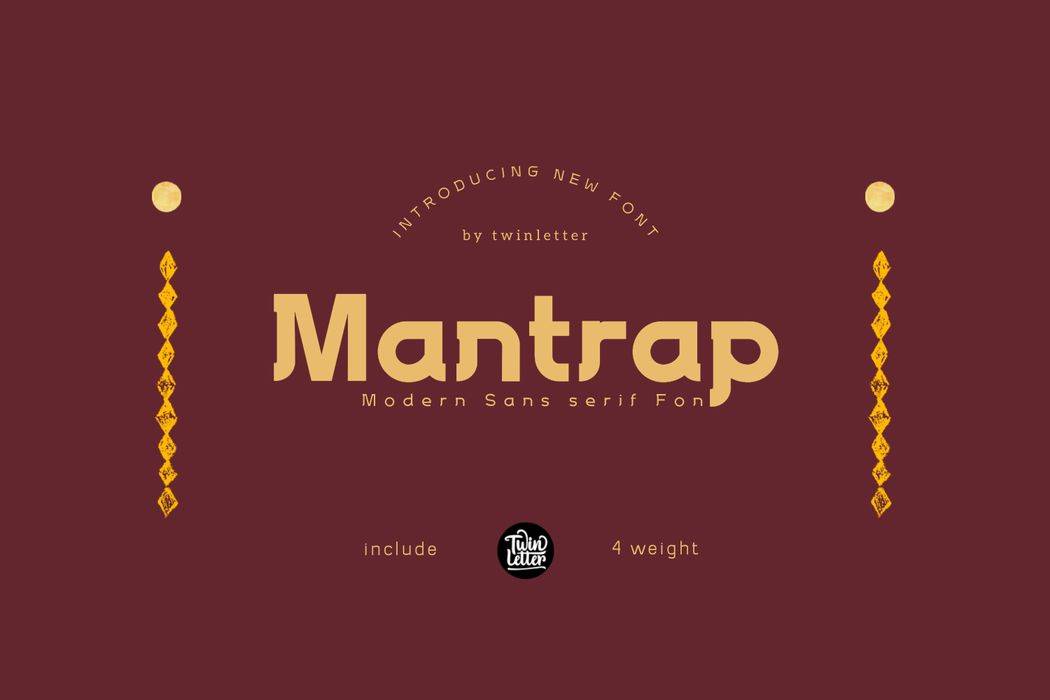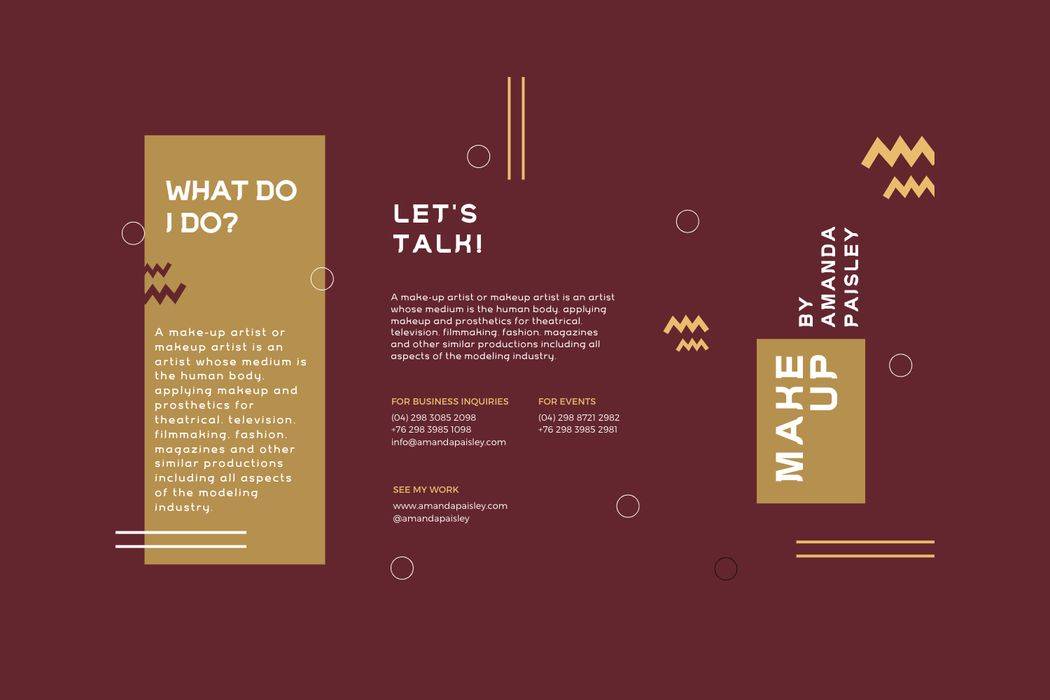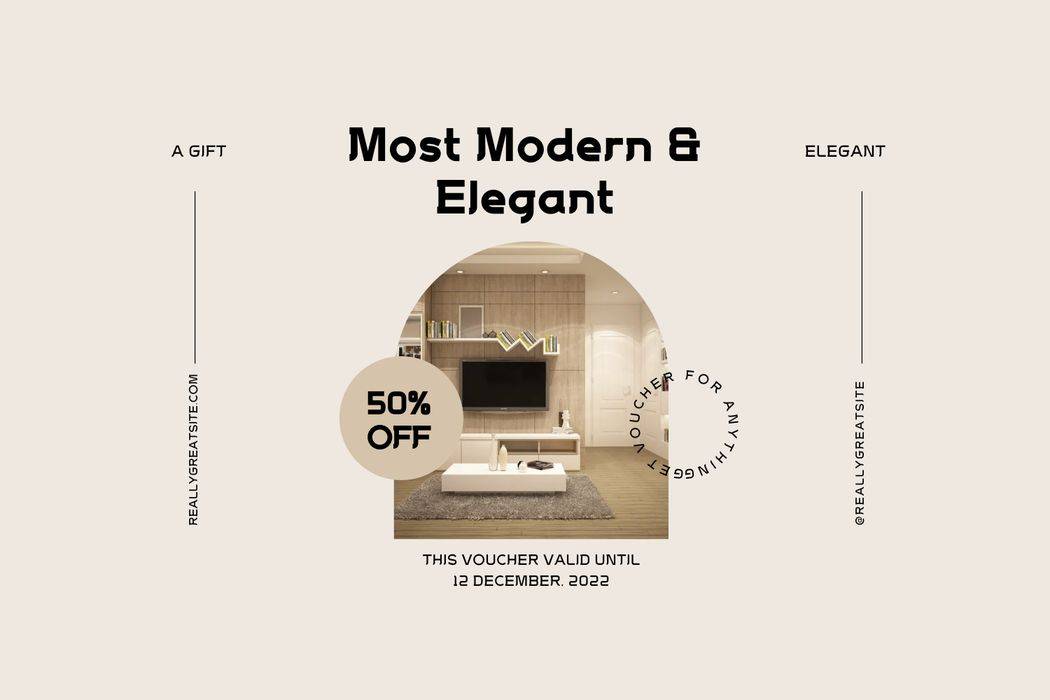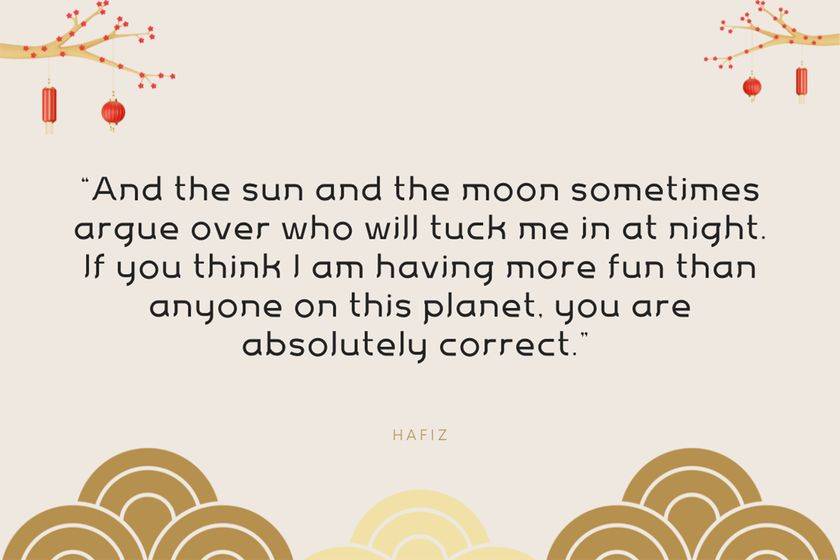
Mantrap is a bold, geometric sans serif font with a distinctive modern feel, featuring sharp, angular strokes and unique character details that add personality without sacrificing legibility. Its sturdy structure and slightly condensed width make it ideal for eye-catching headlines, branding, and editorial use where a strong, contemporary presence is desired. This font works well in design projects seeking a clean yet assertive style that balances modernity with subtle creative flair.
About Mantrap Font